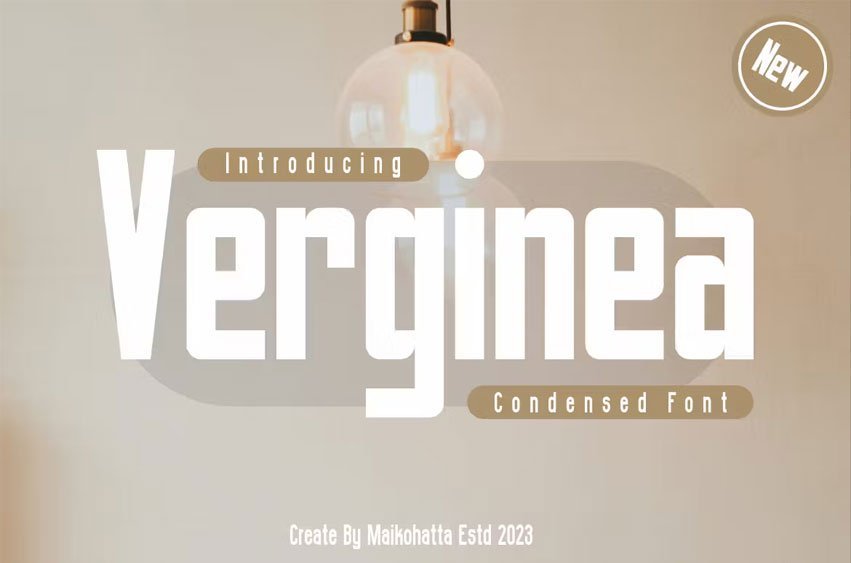
Verginea Font Condensed Font. This font has the main characteristic of being narrower or slimmer compared to regular fonts. It can be used in various design contexts such as graphic design, titles, logo design, web design, posters